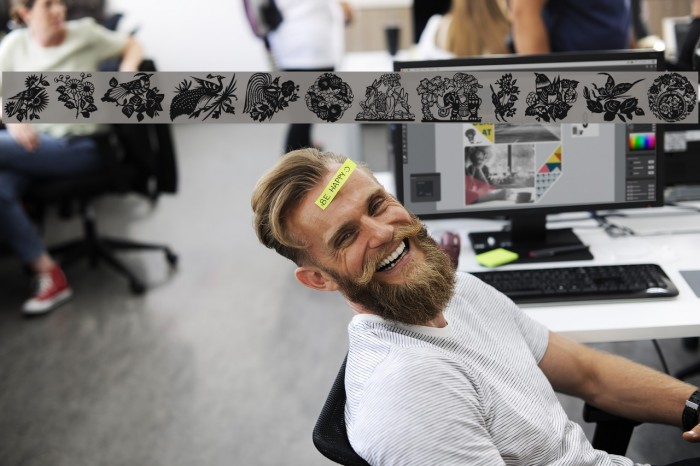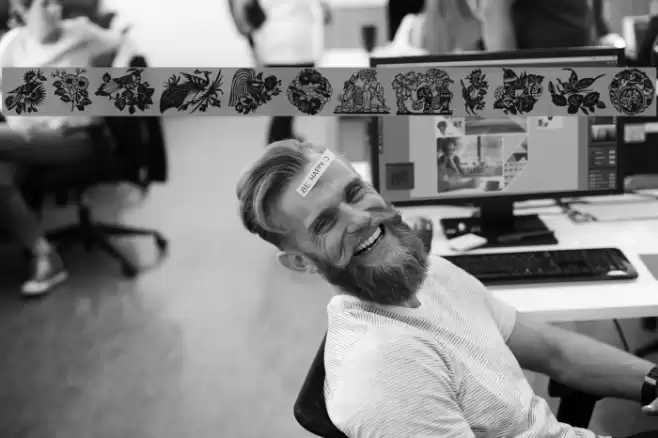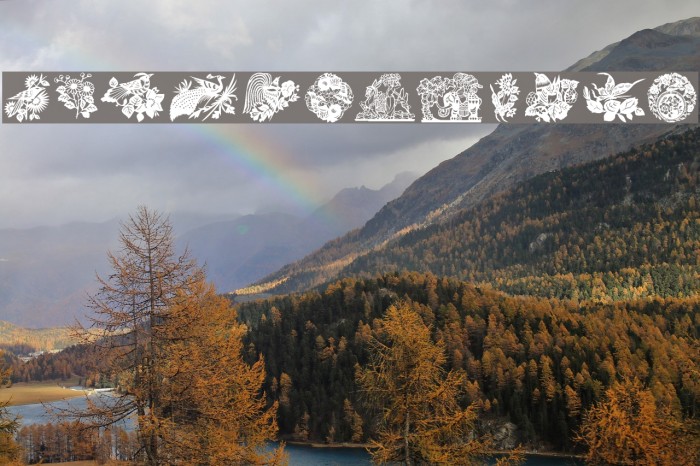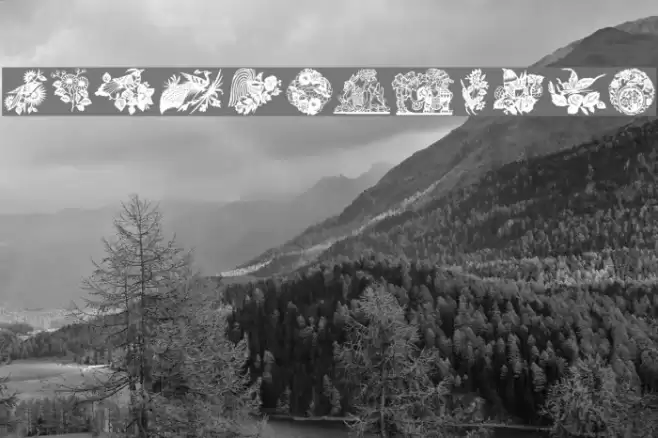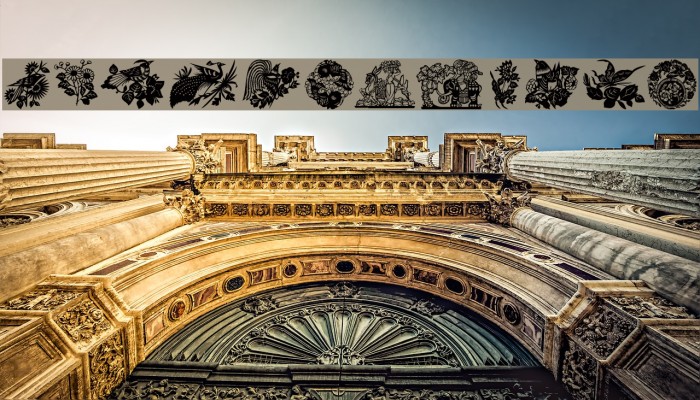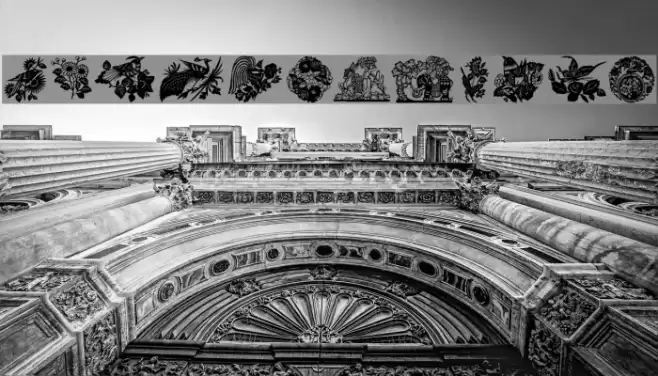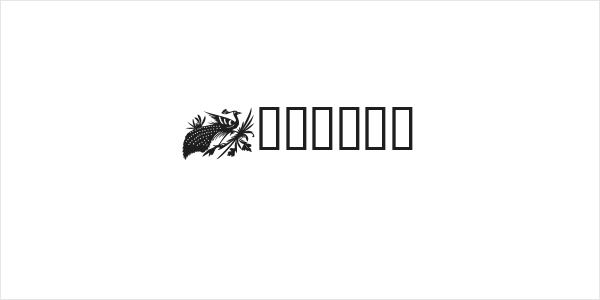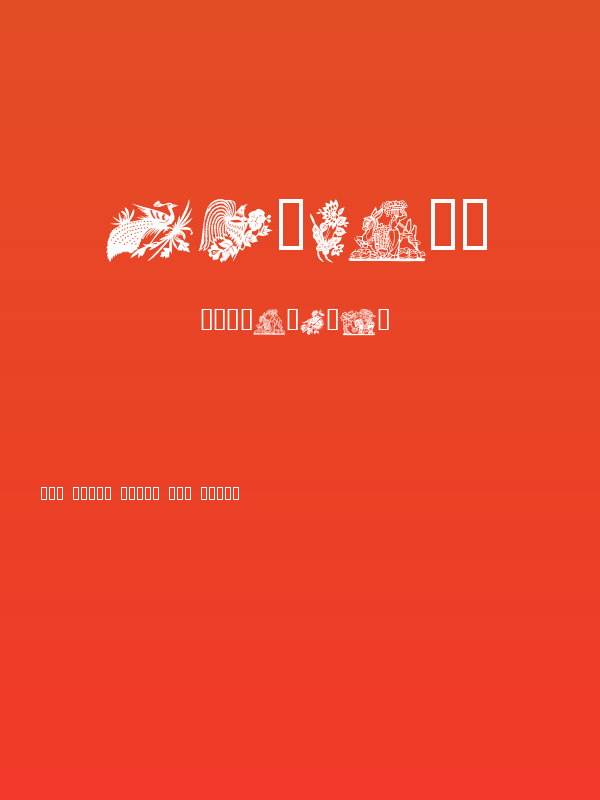
Design1 Font
Design1 Description
This is a decorative font featuring intricate floral and ornamental illustrations for each character, with a highly detailed and vintage-inspired design. The glyphs are unique and artistic, making each letter appear as an individual piece of art.
| Overall Style | Vintage, Decorative |
| Use Case | Logos, Headlines, Invitations, Posters |
| Proposed Projects | Wedding invitations, vintage posters, book covers, branding for luxury or artisanal products, decorative headlines. |